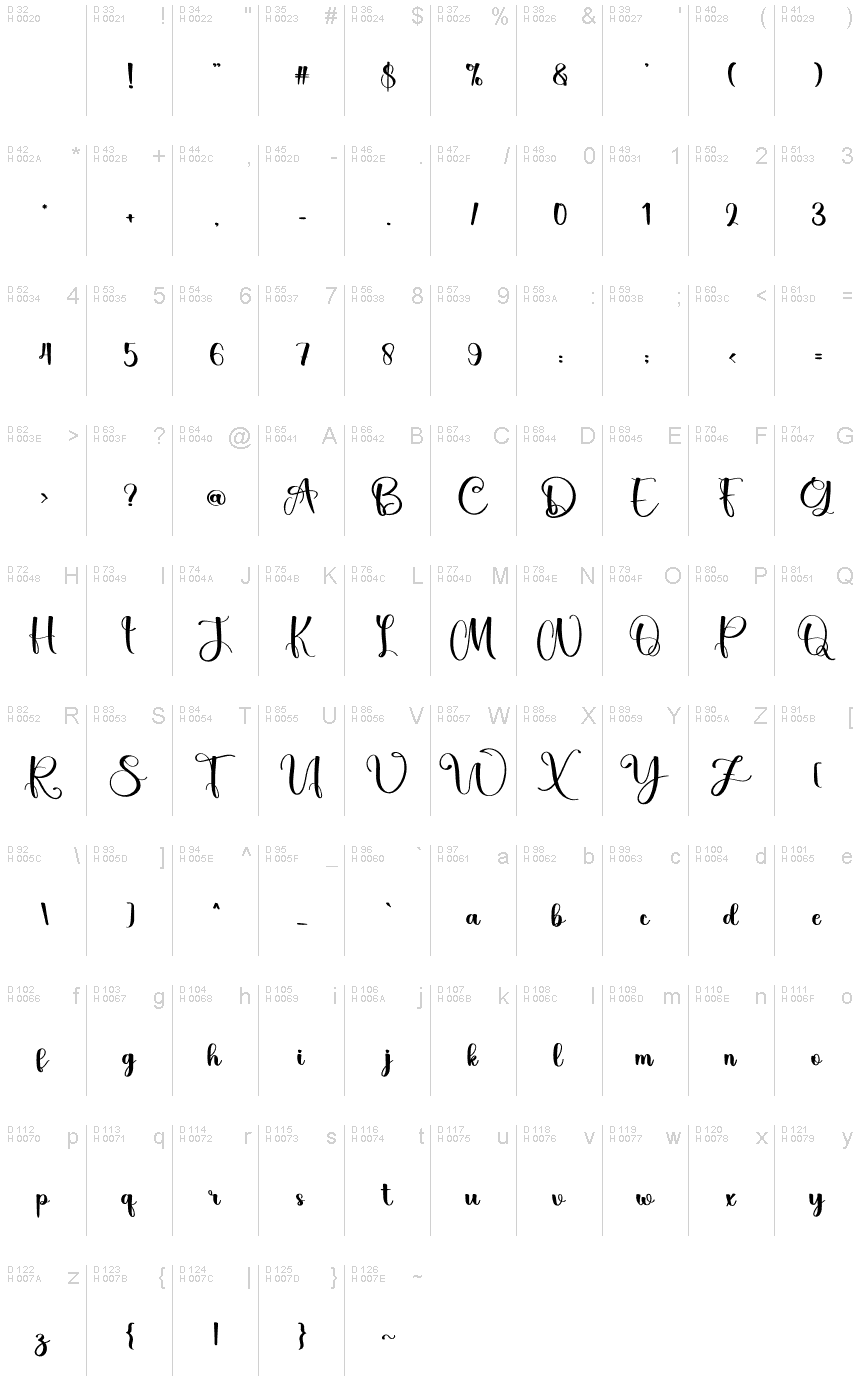
Relate
Relate, the exquisite calligraphy font designed by Inermedia Studio, gracefully blends tradition with modernity. With its fluid strokes and elegant curves, Relate adds a touch of sophistication to any project. This versatile font is perfect for wedding invitations, greeting cards, and luxury branding. Its delicate yet legible script makes it ideal for fashion magazines, high-end beauty products, and artisanal craftsmanship showcases. Whether you're designing a logo for a premium restaurant or creating an opulent event poster, Relate's timeless charm will captivate your audience and elevate your creations to new heights of allure.